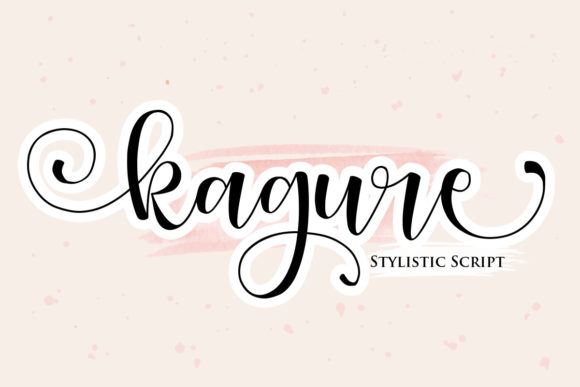
Introducing Kagure Font, the epitome of sophistication and elegance. Immerse yourself in a world of modern calligraphy with this refined script font, meticulously crafted to elevate your creative projects with a touch of timeless beauty.
With Kagure Font, your words will dance across the page, captivating your audience with its graceful curves and expressive strokes. Its stylish alternates and ligatures add a touch of playful charm, making this font the perfect companion for love quotes, wedding invitations, and heartfelt messages.
Unlock the full potential of Kagure Font with its PUA encoding, allowing you to effortlessly access a treasure trove of glyphs and swashes. Unleash your creativity and design captivating logos, elegant branding materials, and stunning social media graphics.
Embrace the allure of Kagure Font and watch your words transform into works of art. Let your imagination soar as you explore a world of endless possibilities, where every letter tells a story and every phrase captivates the hearts of your readers.